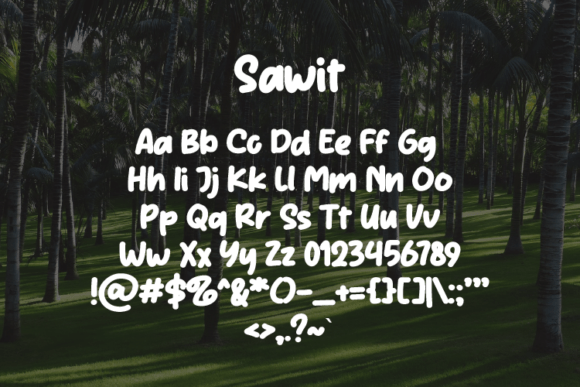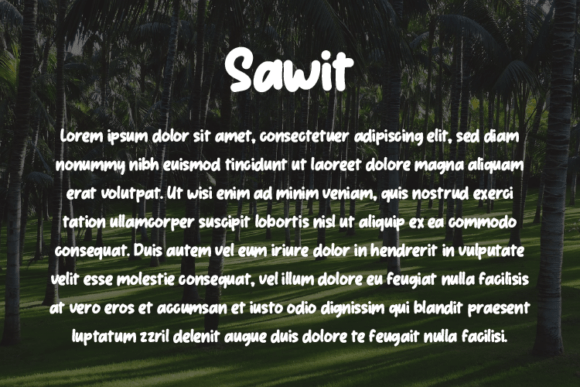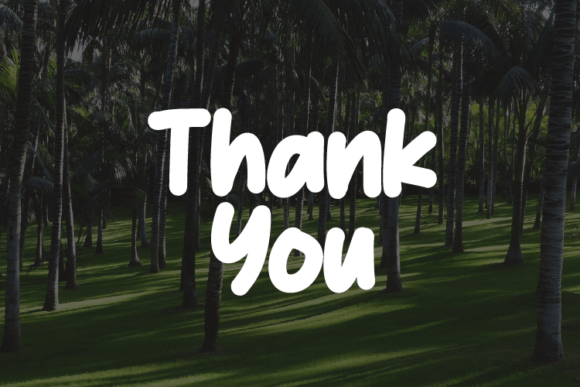
Introduction to Sawit Font
Have you ever been in the middle of a creative project, staring at a blank page, and suddenly the right font appears in your mind? For designers, finding that perfect font can be a game-changer. It’s like the missing puzzle piece that brings your entire design to life. That’s exactly what we’re excited to share with you today – the Sawit Font, a modern and elegant typeface designed for flexibility and excellent readability.
Sawit Font Key Features
- High-quality design resource with a unique, modern aesthetic
- Transparent background for easy integration into creative projects
- High-resolution design, suitable for print and digital applications
- Perfect for use in logos, branding materials, and other creative projects
Honest Review: Sawit Font
I recently stumbled upon the Sawit Font while searching for a high-quality design resource for a creative project. The font caught my eye with its unique and modern design, and I was eager to dive in and see what it had to offer.
One of the standout features of the Sawit Font is its transparent background, which makes it perfect for use on top of images or videos. This feature is particularly useful for designers who need to create visually appealing and engaging content.
Here are some of the things that work well with the Sawit Font:
- Unique and modern design
- Transparent background for easy use on images or videos
- High-quality font for a professional look
- May not be suitable for use in print materials due to its modern design
- Not as versatile as some other fonts on the market
Overall, I would say that the Sawit Font is a solid choice for designers looking for a high-quality and unique font for their creative project. While it may have a few limitations, its modern design and transparent background make it a valuable asset for any design project.
To get the most out of the Sawit Font, use it with a transparent background to create a clean and modern look. You can also experiment with different font sizes and styles to create a unique design.
The Sawit Font is commonly used in branding, marketing materials, and creative projects that require a high-quality and professional look. It’s also a great resource for designers and artists who want to add a touch of sophistication to their work.
Alternatives to Sawit Font
Montserrat is a high-quality sans-serif font that is ideal for creative projects requiring a clean and modern aesthetic. It features a transparent background and is available for free download. When to use: Logos, headings, and titles for websites and applications. How it compares to Sawit Font: Montserrat has a more geometric and condensed appearance, making it suitable for digital displays.
Lato is a popular sans-serif font that is perfect for design resources needing a high-quality and elegant look. It offers a transparent background and is available for free download. When to use: Body text, paragraphs, and captions for websites, magazines, and brochures. How it compares to Sawit Font: Lato has a more rounded and friendly appearance, making it suitable for print materials and digital content.
Open Sans is a modern sans-serif font that is ideal for design projects requiring a high-quality and clean aesthetic. It features a transparent background and is available for free download. When to use: Body text, paragraphs, and captions for websites, applications, and digital content. How it compares to Sawit Font: Open Sans has a more neutral and legible appearance, making it suitable for a wide range of design projects.